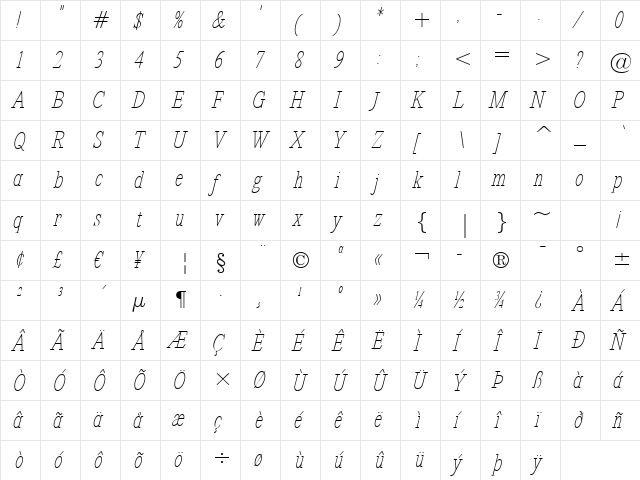
Revelation BTN Cond Lt Oblique
Design Context for Revelation BTN Cond Lt Typeface
Revelation BTN Cond Lt takes a measured approach to typography — its balanced proportions and neutral character make it a reliable workhorse for both digital and print work. The dynamic lean of this cut emphasises speed and emphasis in any layout. Its slender proportions lend an understated elegance to any composition. Its narrow stance lets it pack a punch even in space-constrained designs.
Pro Tip: Try Revelation BTN Cond Lt for annotation and caption copy alongside an upright companion — the contrast in angle creates a dynamic but ordered typographic system.